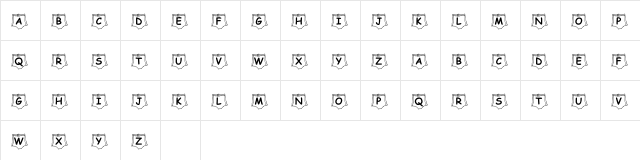
KR Nick's Lil Swimsuit Regular
Design Context for KR Nick's Lil Swimsuit Typeface
KR Nick's Lil Swimsuit is a composed and adaptable typeface that performs quietly and consistently across a wide range of design contexts.